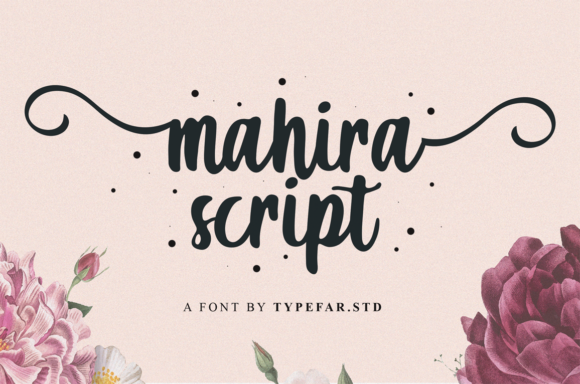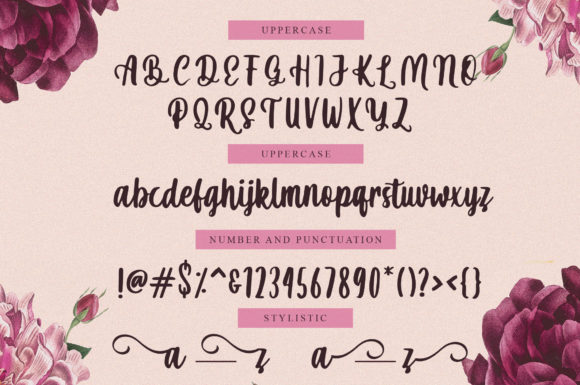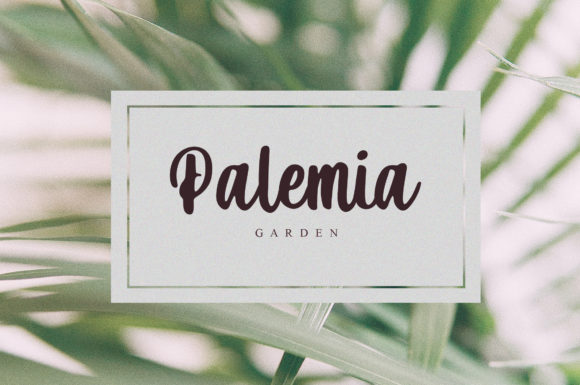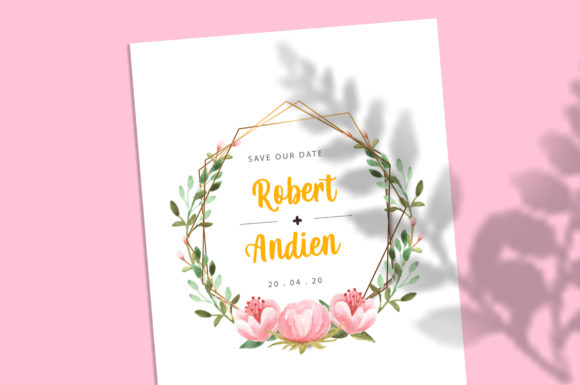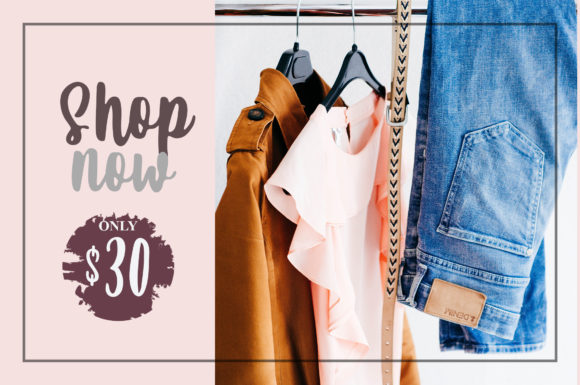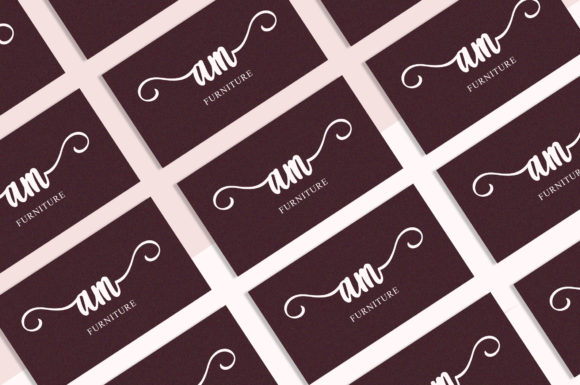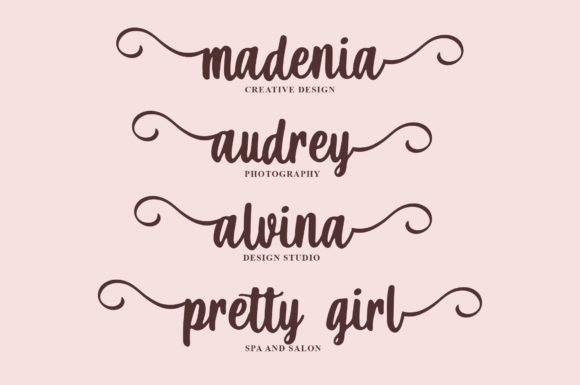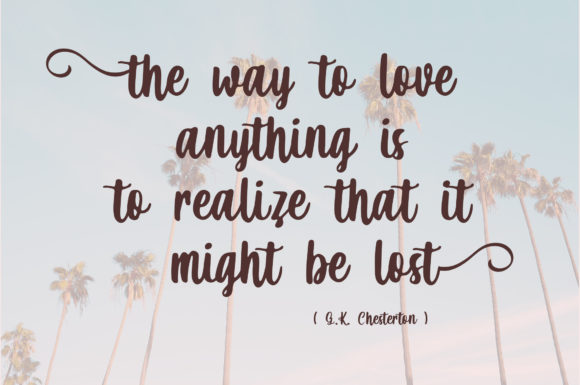
Mahira Font
About Mahira Font
Mahira is a deliciously sweet and charming handwritten font with an incredibly romantic feel. Use it to add a delicate feel to any creative project!